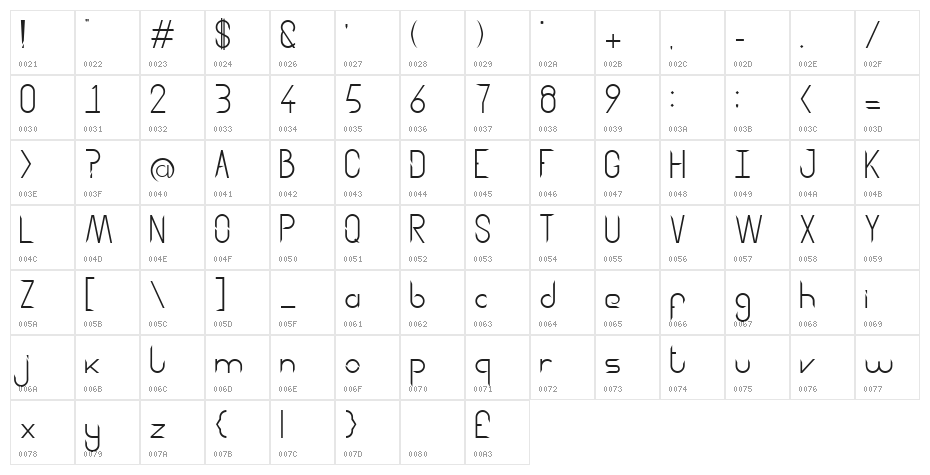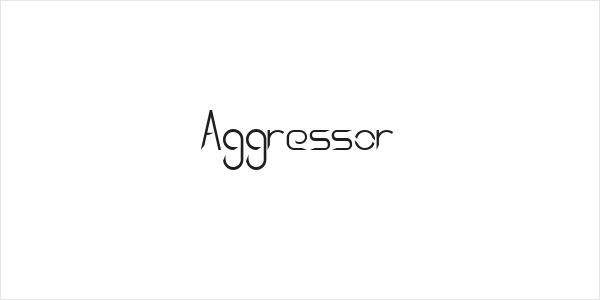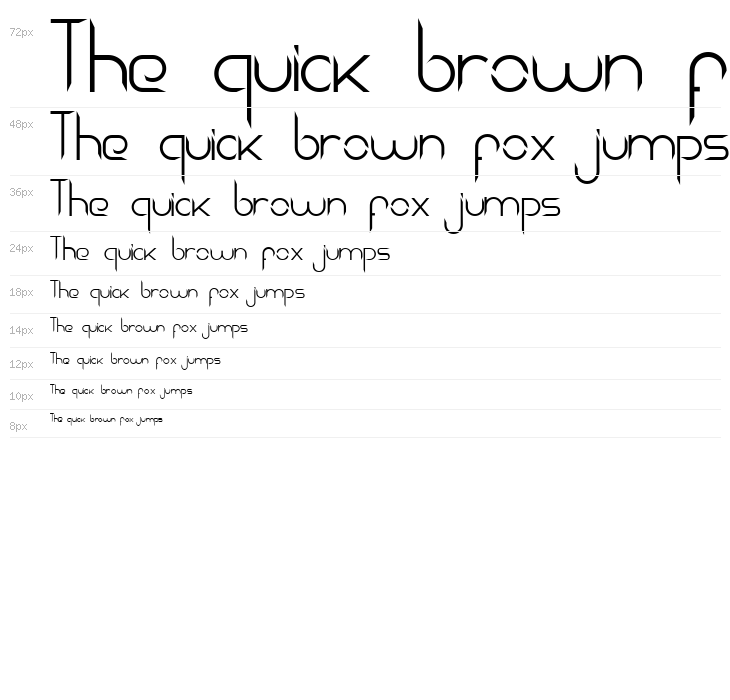
Aggressor Font
✎ Futuristic
Aggressor Description
This font features a modern and edgy design with sharp, angular lines and a futuristic aesthetic. The uppercase letters are tall and narrow, with distinct geometric shapes that give them a unique, aggressive look. The lowercase letters maintain a similar style, with a consistent height and angularity that complements the uppercase set. Numbers are designed with the same sharpness, ensuring a cohesive appearance across all characters. Special characters follow the same design principles, adding to the font's overall uniformity. The font's distinct style makes it suitable for projects that require a bold, contemporary look.
| Width | Condensed |
| Proposed Projects | Ideal for branding, posters, album covers, and any project needing a bold, modern aesthetic. |